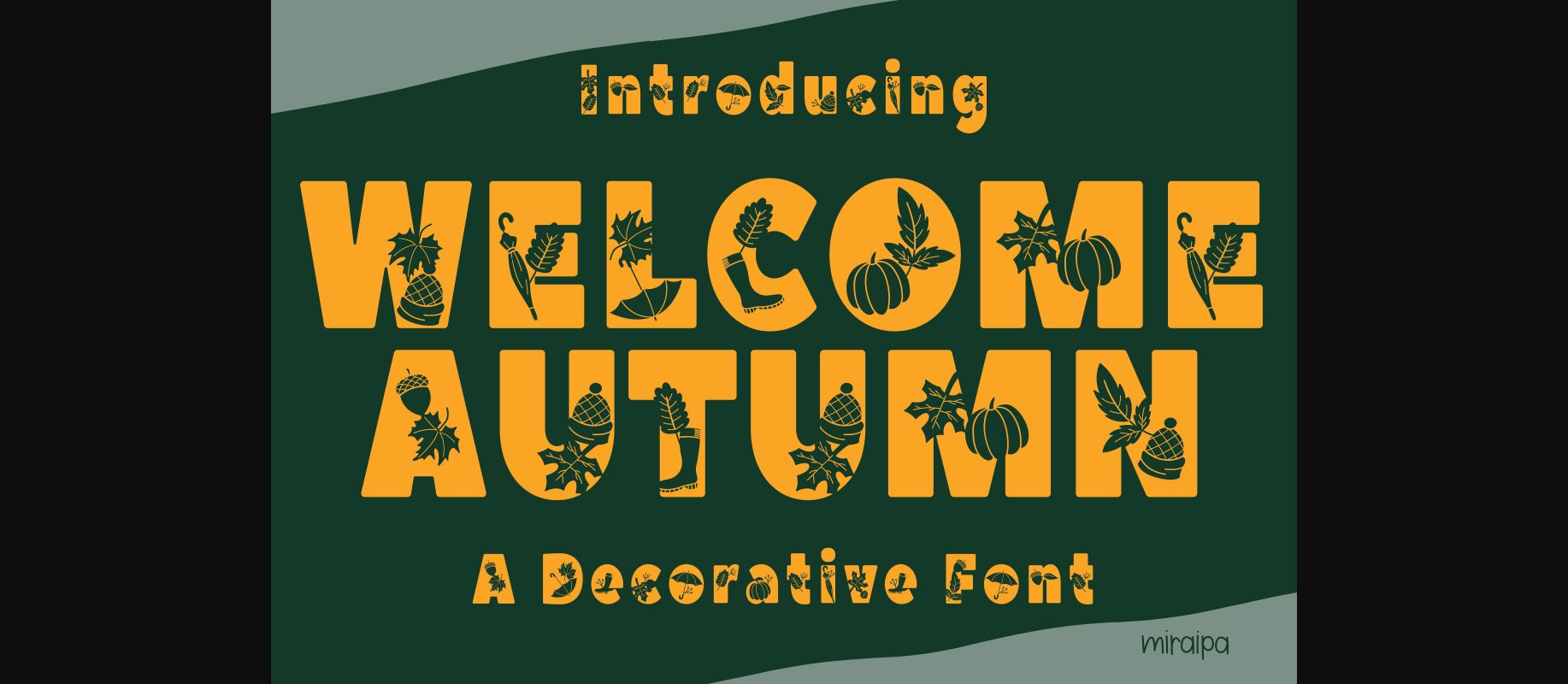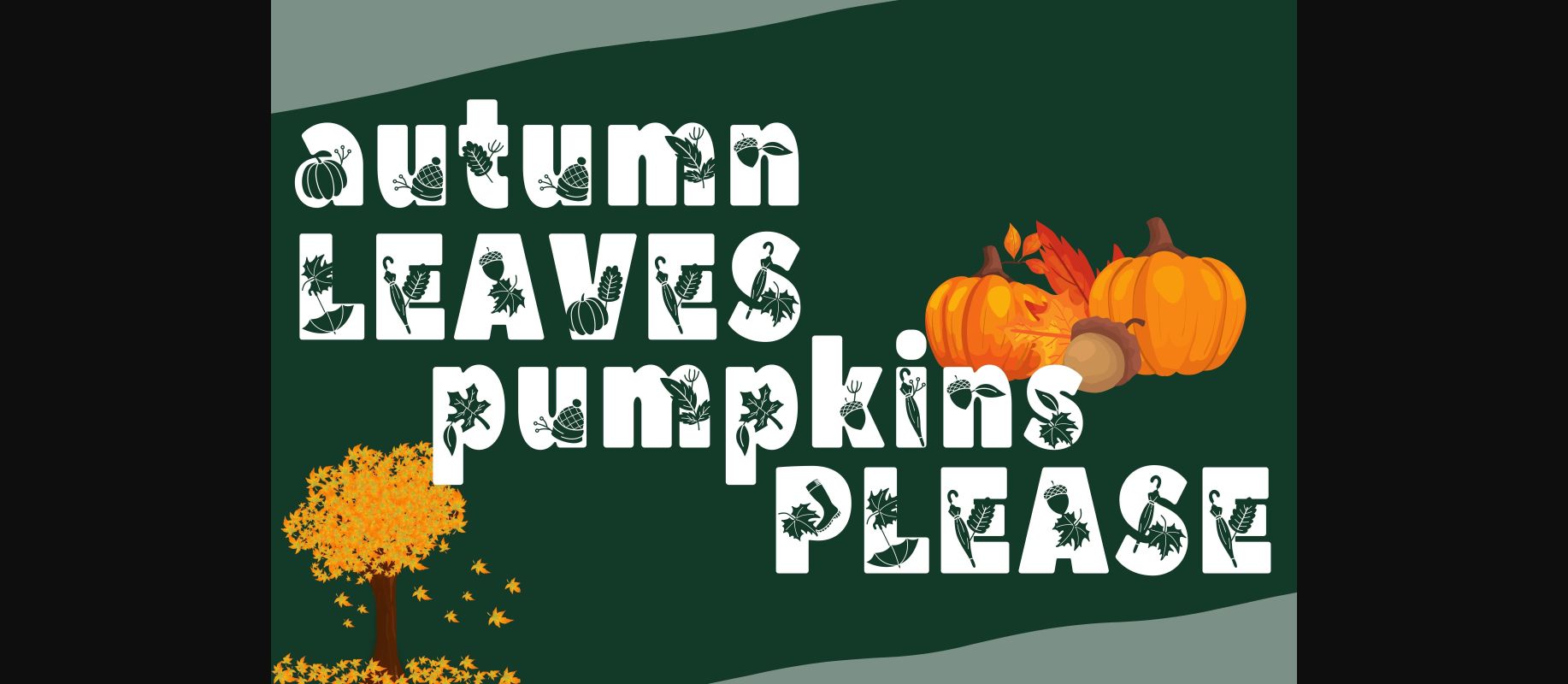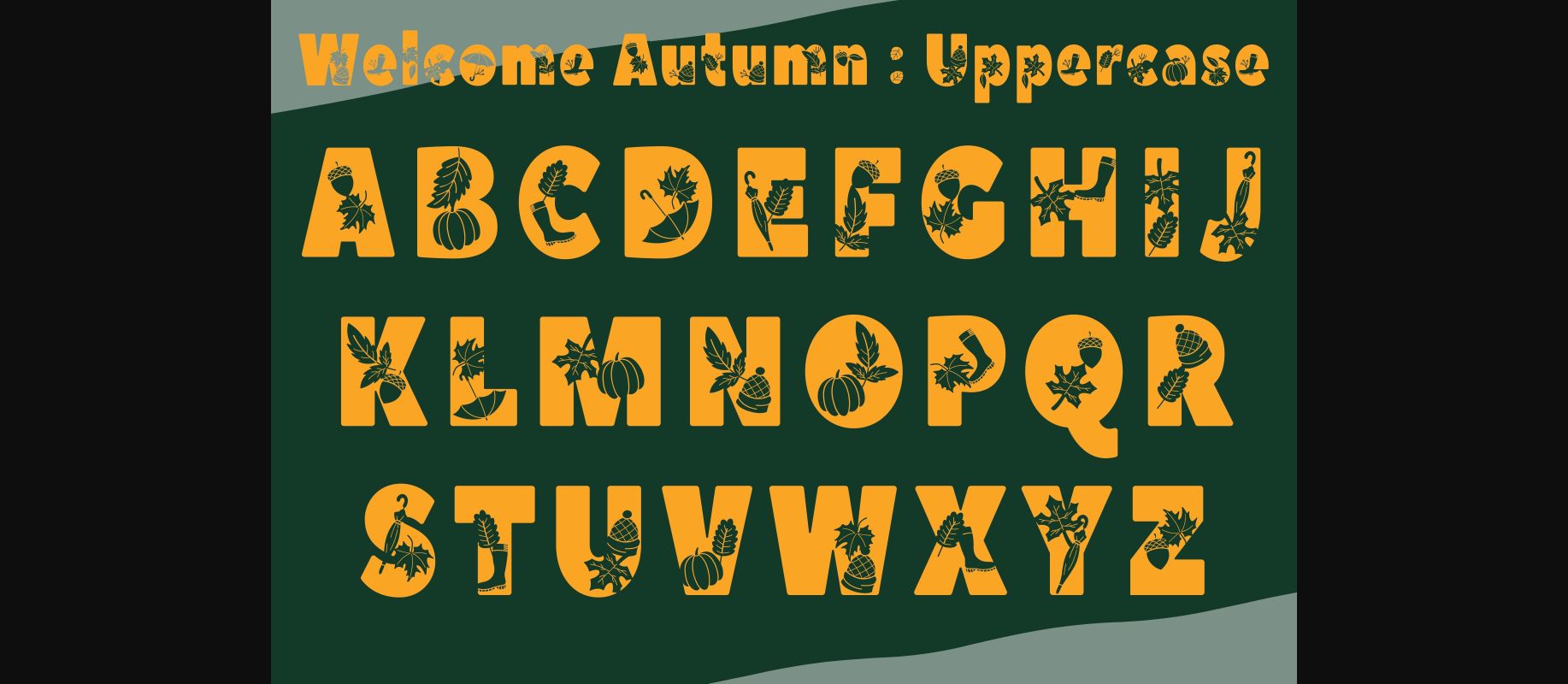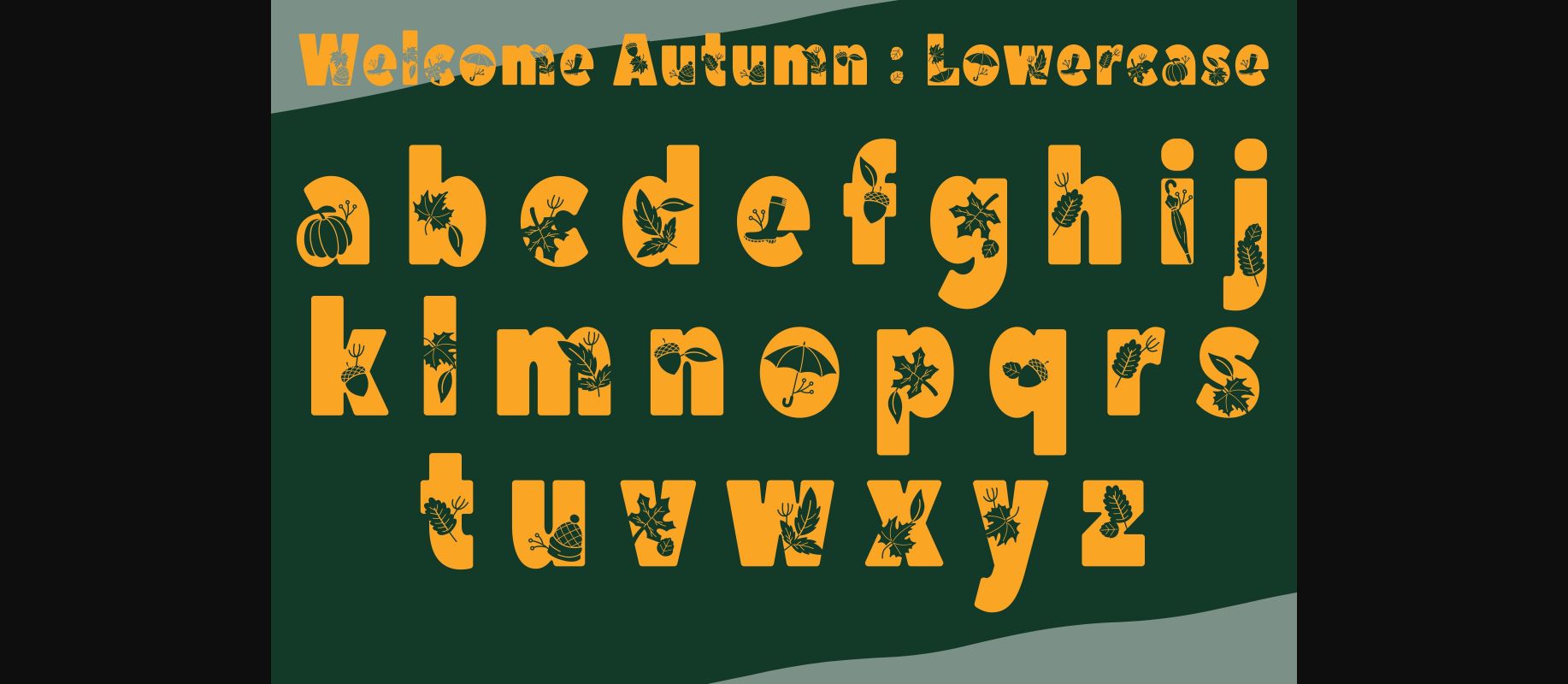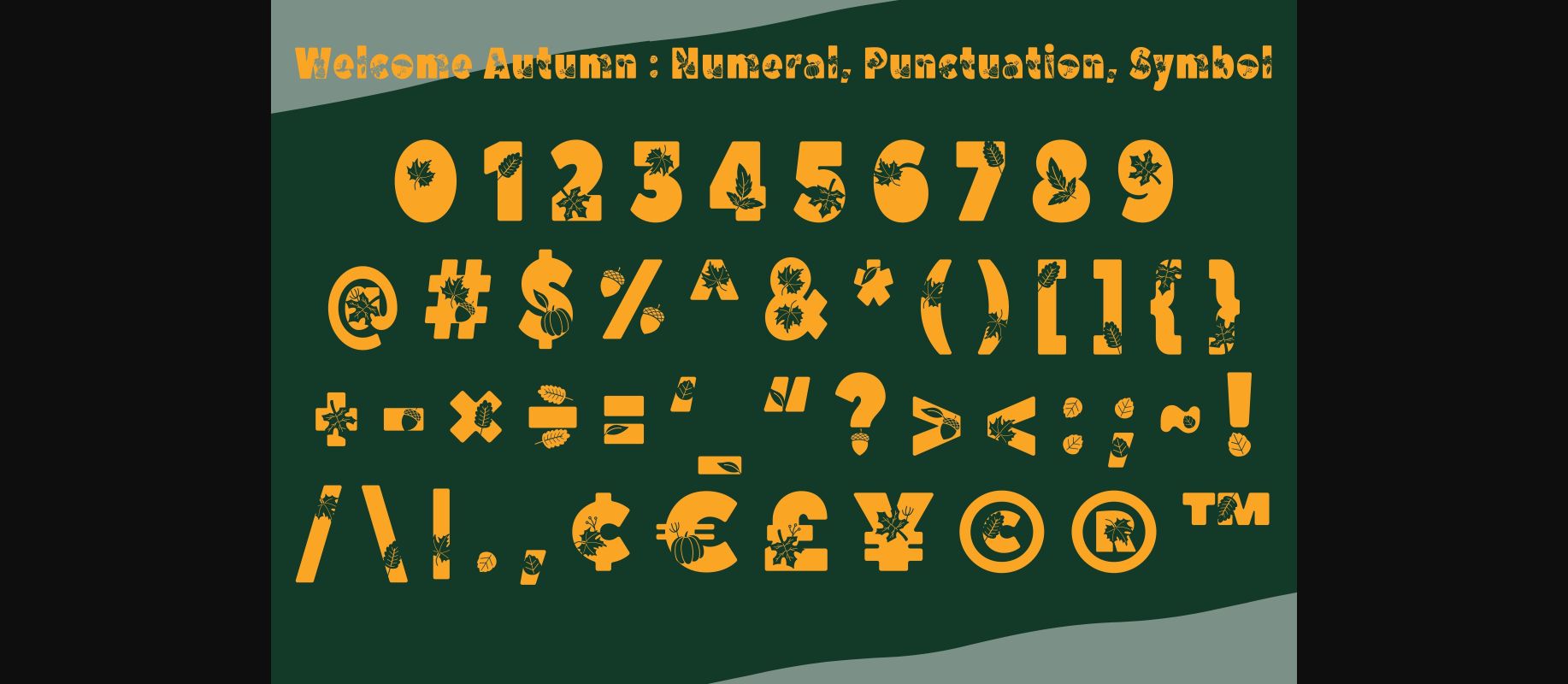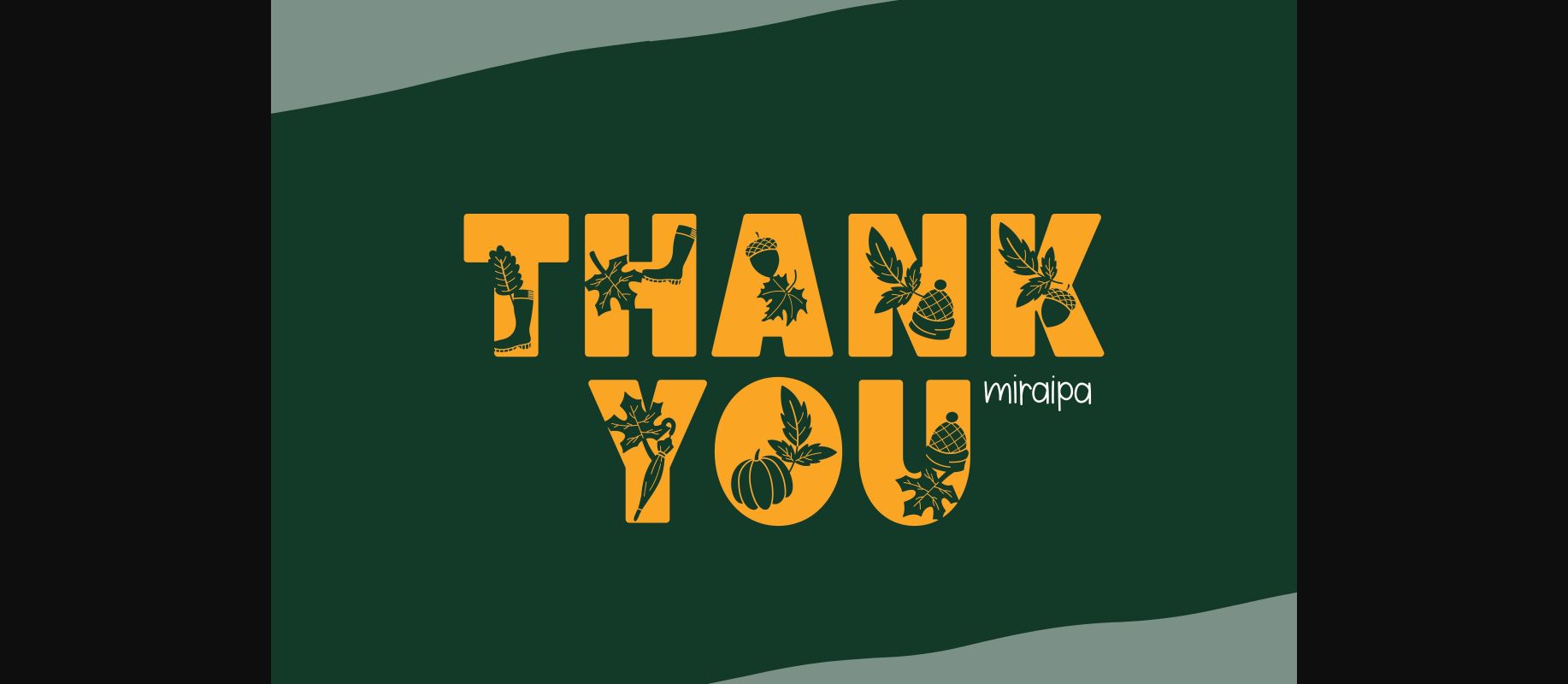
About Welcome Autumn Font
Welcome Autumn is a lovely and cute decorative font. It would be awesome for your fall projects, weddings, back-to-school designs, party decorations, party invitations, posters, blogs, clothing, greeting cards, social media posts, or anything that needs a friendly touch. Add it now to your fonts library, and it will bring any of your DIY projects to life.